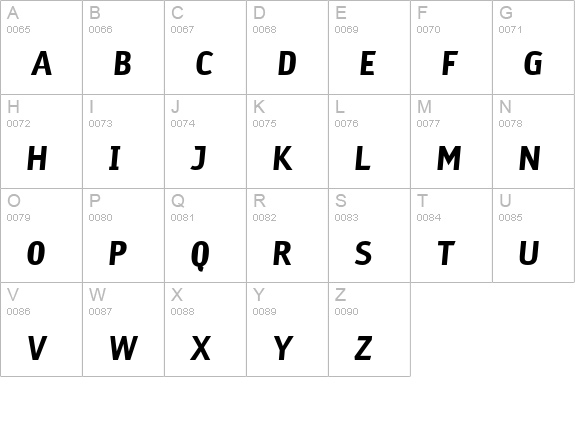
Sodium-BoldItalic Font Details
The Sodium-BoldItalic font is a stunning and eye-catching typeface that exudes a sense of boldness and elegance. Its sleek and slanted italic design adds a touch of sophistication to any project, making it the ideal choice for graphic designers, typographers, and creatives alike. With its strong and pronounced letterforms, Sodium-BoldItalic commands attention and effortlessly captures the essence of modernity and professionalism. Whether used in print or digital media, this font is guaranteed to make a lasting impression. What makes Sodium-BoldItalic even more appealing is that it is freely available to download at FontsMarket.com. This means that you can access this exceptional font without any cost, making it an invaluable asset for those on a tight budget or simply looking for high-quality typography without breaking the bank. Not only does Sodium-BoldItalic offer its users a visually striking aesthetic, but it also delivers exceptional legibility and readability. Its carefully crafted letter shapes ensure that each character is distinct and easily recognizable, even at smaller sizes or when used in long paragraphs of text. Ideal for a wide range of design projects, Sodium-BoldItalic is perfect for creating captivating headings, impactful logos, stylish invitations, attention-grabbing posters, and much more. Its versatility knows no bounds, allowing you to unleash your creativity and bring your design visions to life. Embrace the power and freedom of the Sodium-BoldItalic font, and let its bold and italic charm elevate your designs to new heights. Download this font today at FontsMarket.com and experience the boundless creative possibilities it offers.